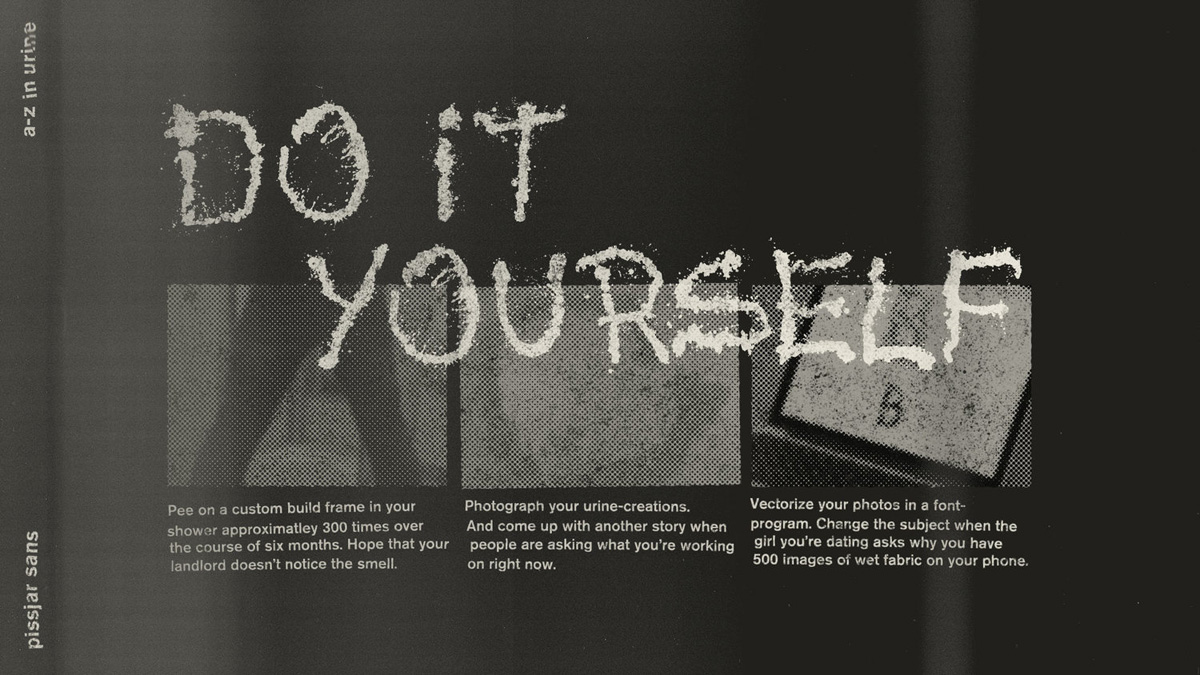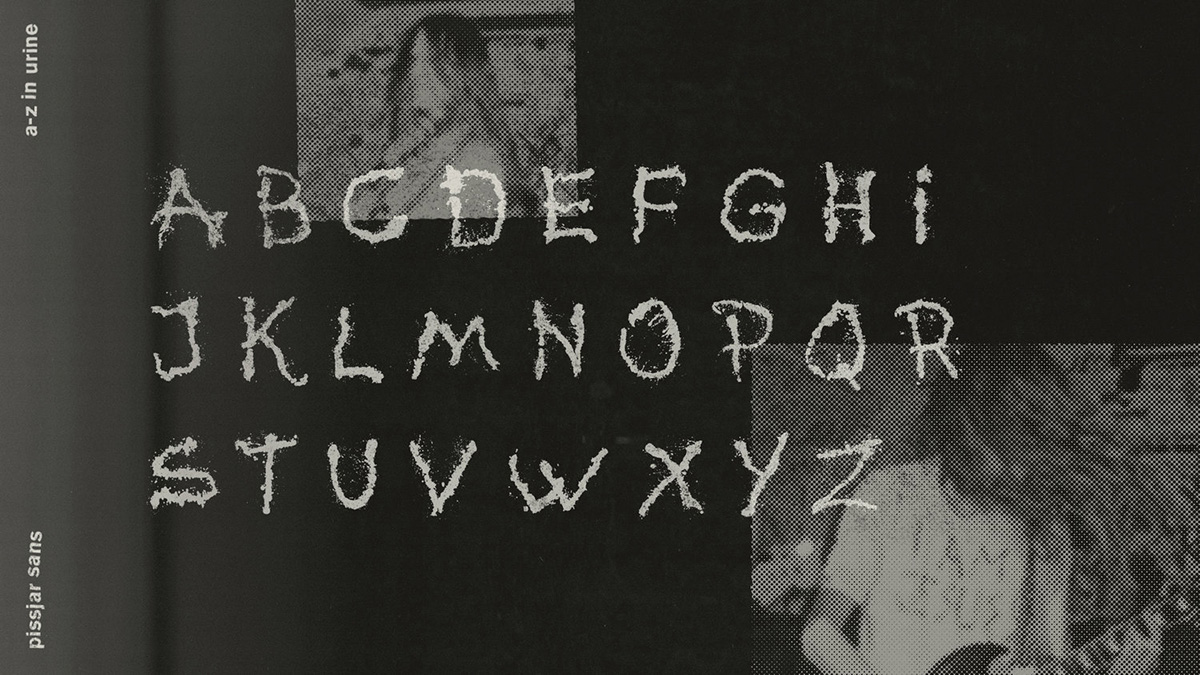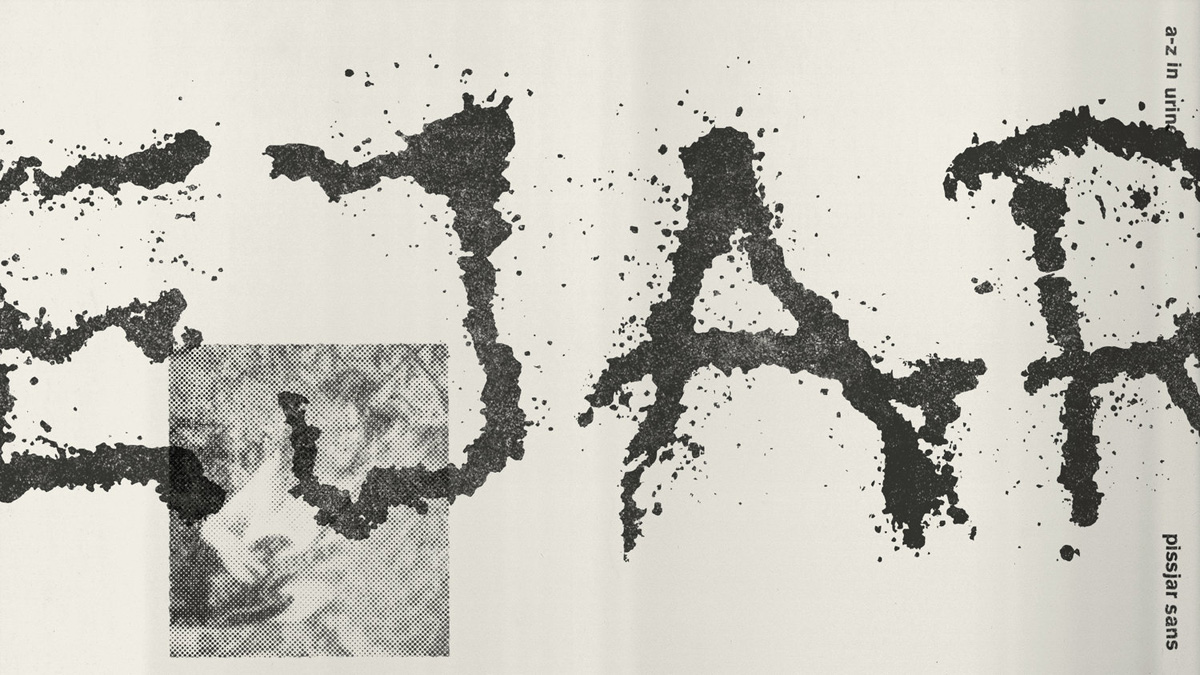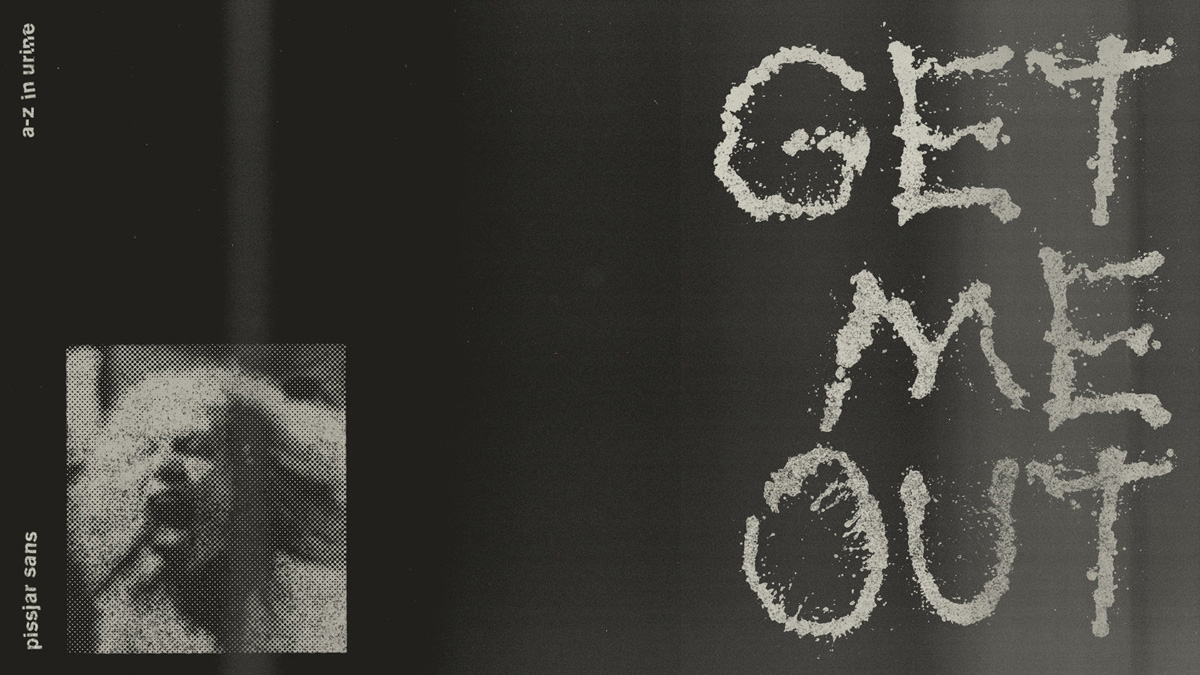
Swedish punk band Pissjar releases typeface made from own urine
The charmingly-named band created the typeface for the launch of their new album, spending six months urinating onto bed sheets
This tasteful addition to the typographic canon was dreamed up as a side project by Anton Bolin, an art director at Swedish agency ACNE.
The idea started out as an image for the sleeve of the band’s new album, Apathy & Cheap Thrills. But once the band got going, as it were, they decided to expand it into a full-fledged, downloadable typeface.
Bolin stretched bedsheets over a frame to create an absorbent surface to make the characters. The band then let rip “one letter per pee session”. Each character was then photographed before it dried.
The band say it took around 300 peeing sessions, spread over six months, to create the full alphabet. R was, apparently, the most challenging letter – they finally gave up making it for real and stitched several bits of other characters together on the computer to make it.
Now Pissjar Sans is available to download for free “for you to use in your wedding invitation, school report or as a company logo for your shitty startup. Enjoy!”